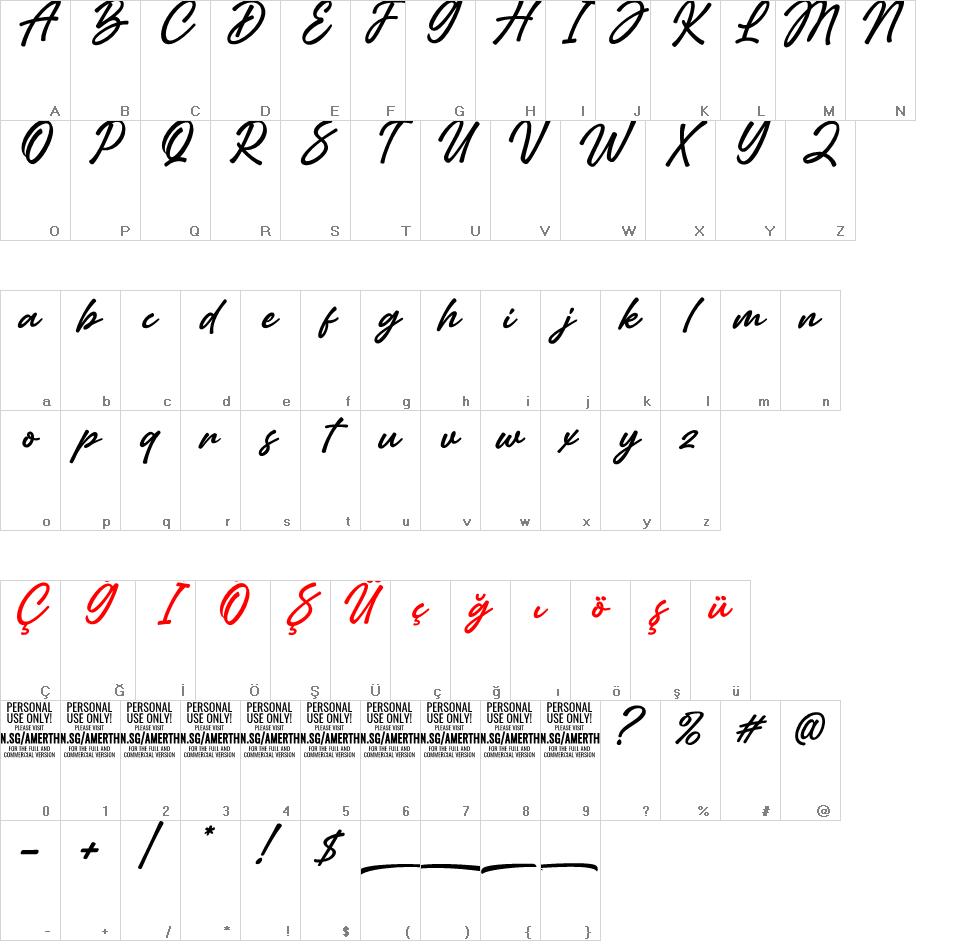
Amertha font
The swashes are located on the parenthesis characters: [ ] ( ) { } < >
Place one of these characters where you want the swash to appear.
Example: Bea(utiful